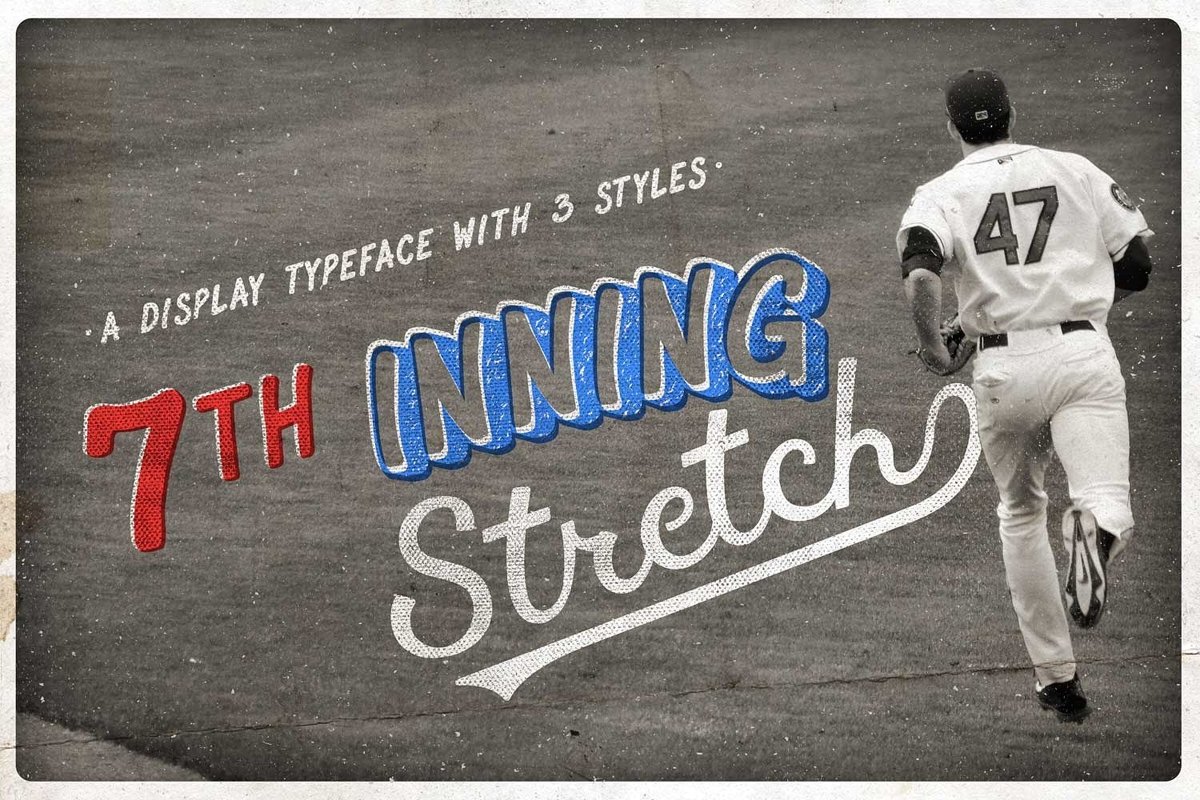
7th Inning Stretch
7th Inning Stretch is a vintage, hand drawn, 3 font typeface family. This baseball inspired font includes a handrawn sans serif, complimentary outline/dropshadow and an athletic themed cursive script
• 7th Inning Stretch Fill includes an uppercase alphabet, along with numbers & symbols
• 7th Inning Stretch Shadow includes an uppercase alphabet, along with numbers & symbols
• 7th Inning Stretch Script includes an uppercase & lowercase alphabet & varying length swashes
7th Inning Stretch